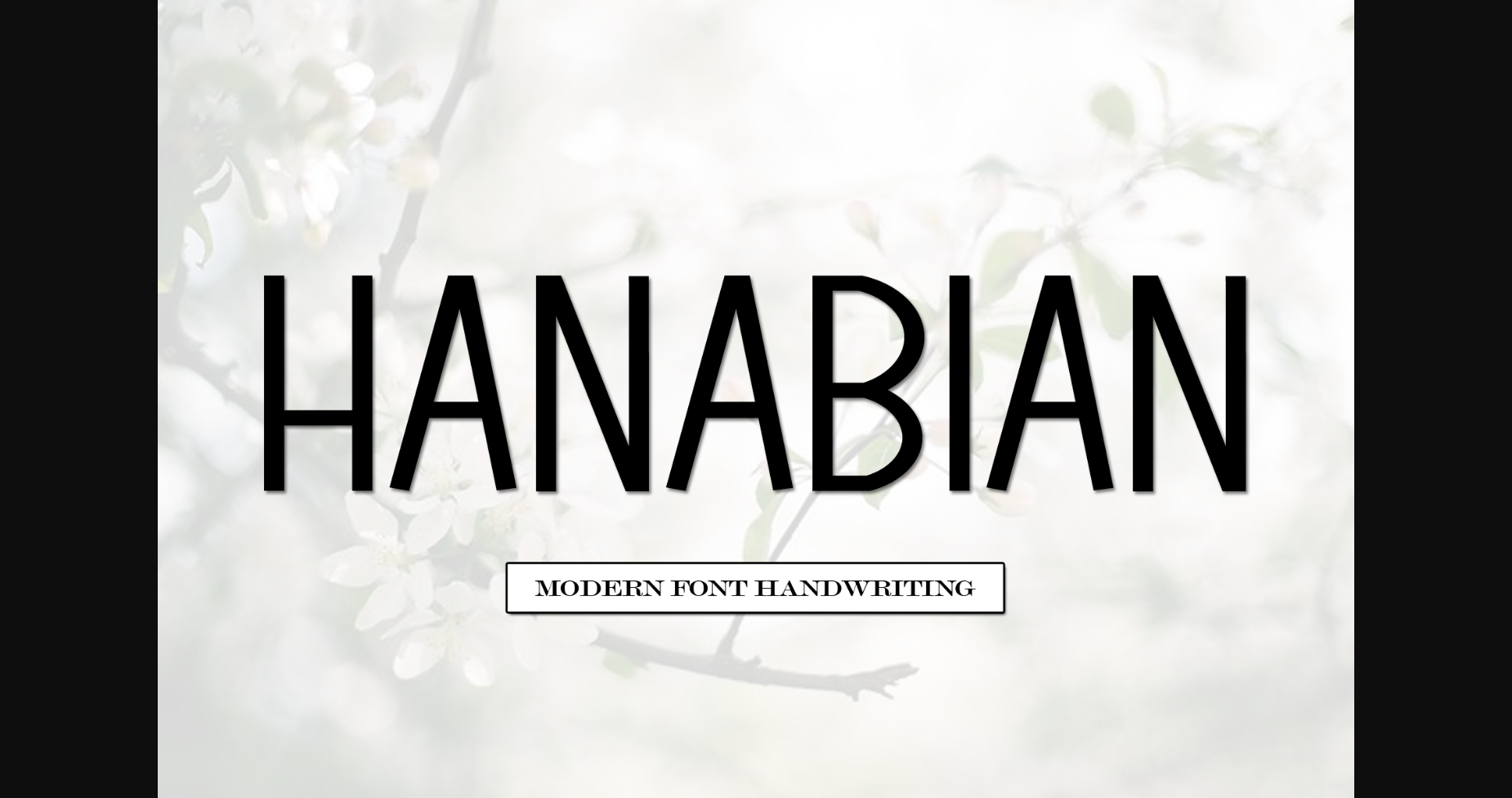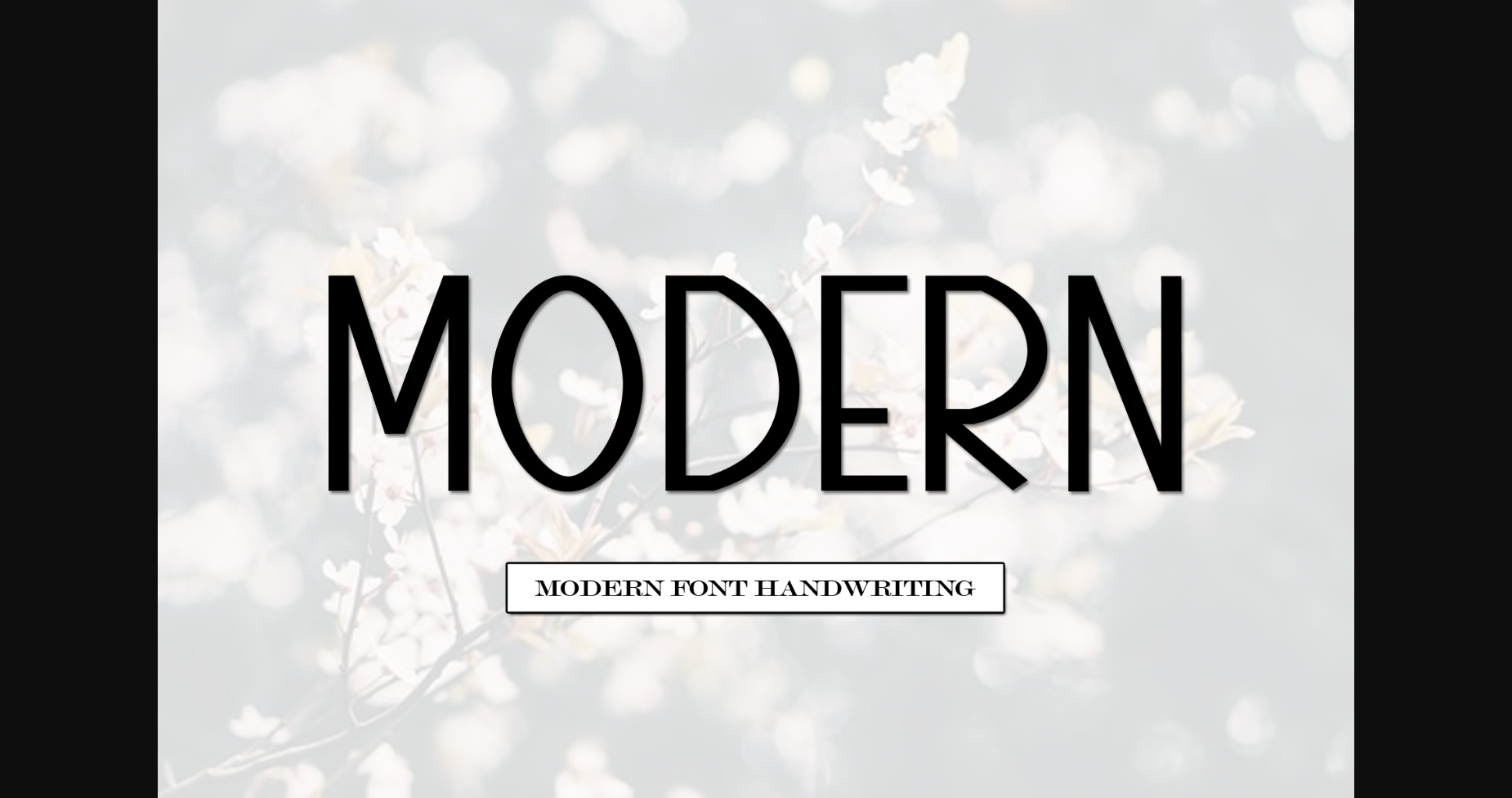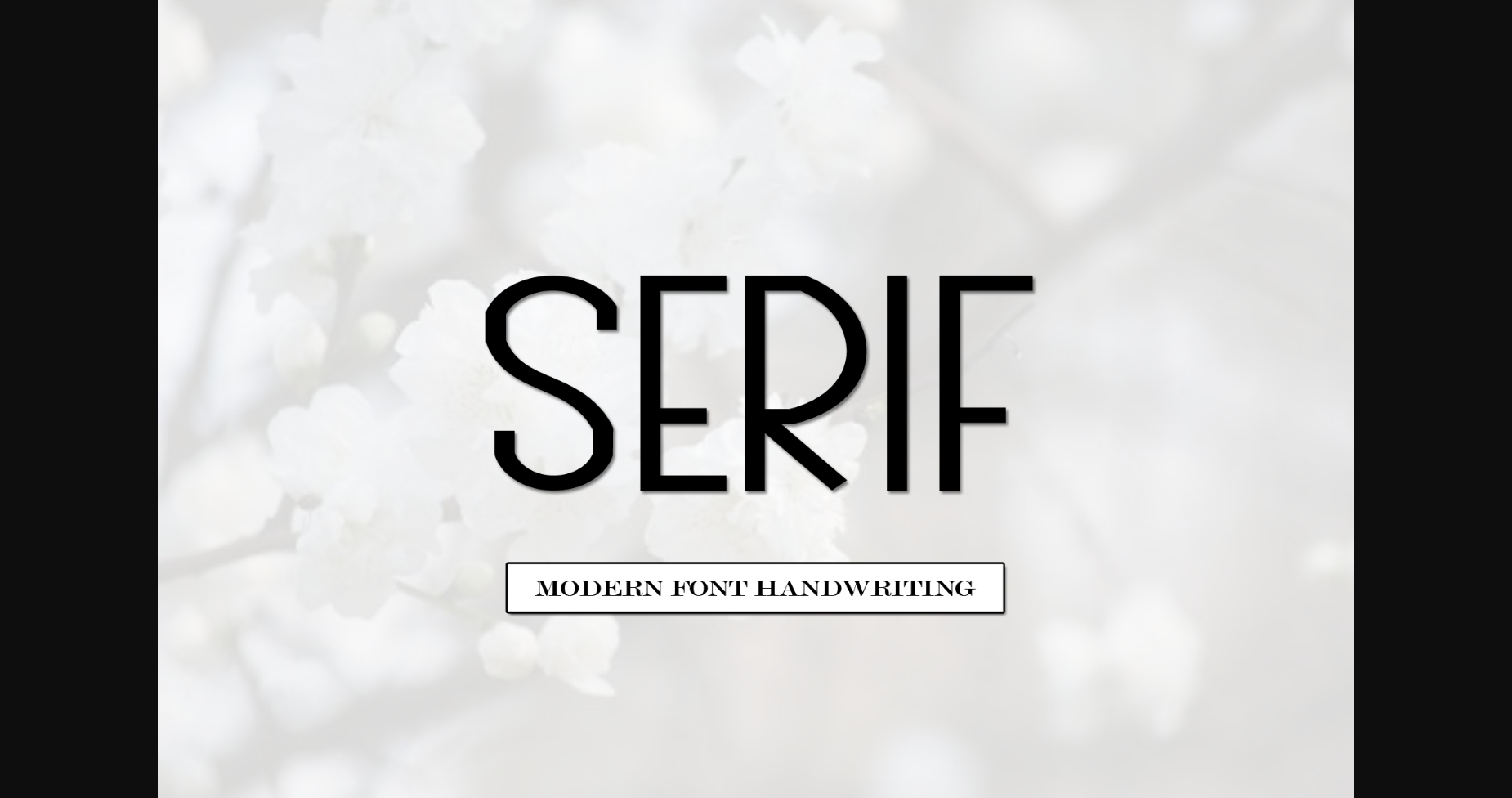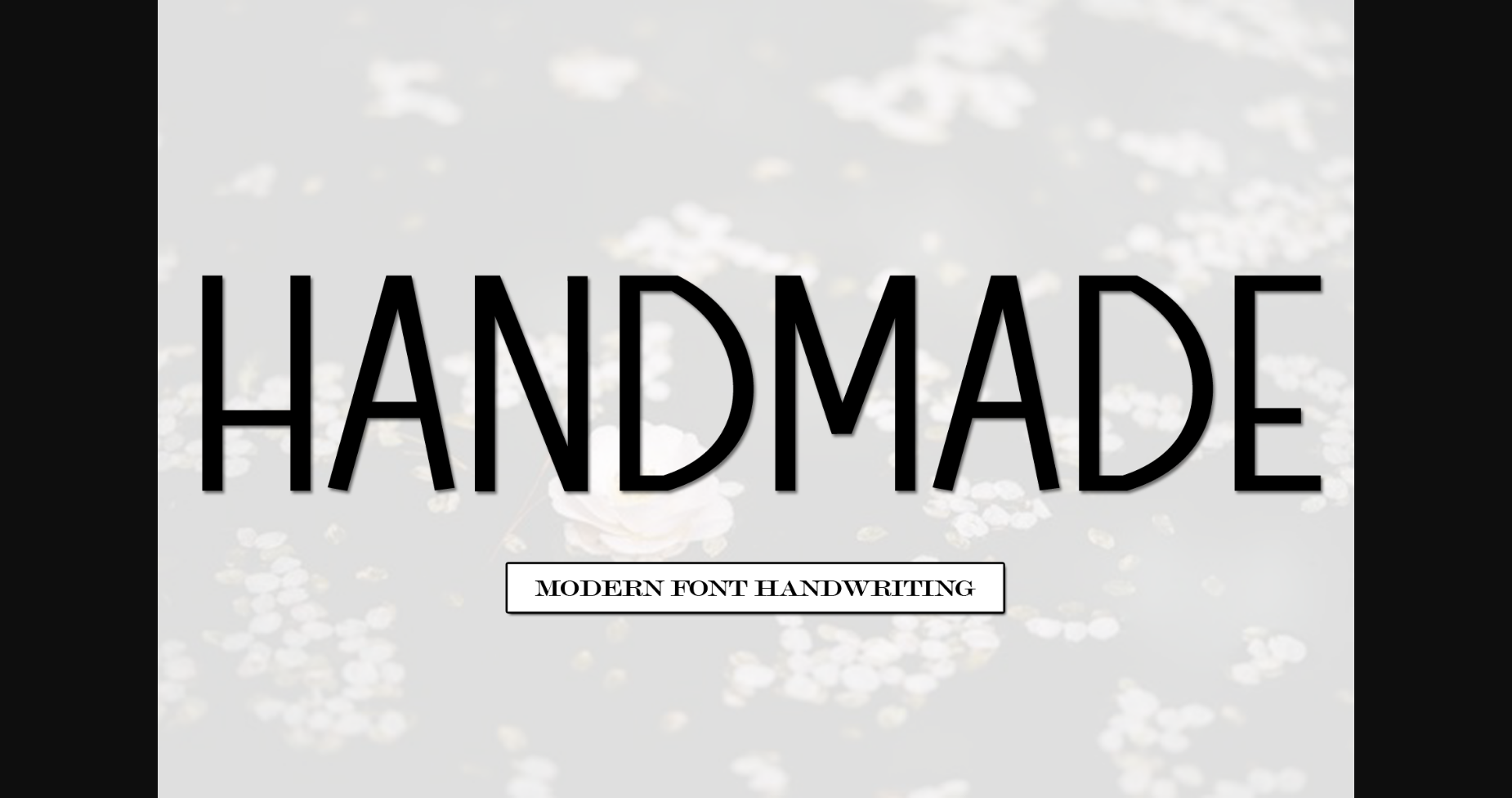
Hanabian Font
About Hanabian Font
Hanabian is a stylish and very elegant handwritten font. It looks amazing on wedding invitations, thank you cards, quotes, greeting cards, logos, business cards and any other design that calls for a handwritten touch.